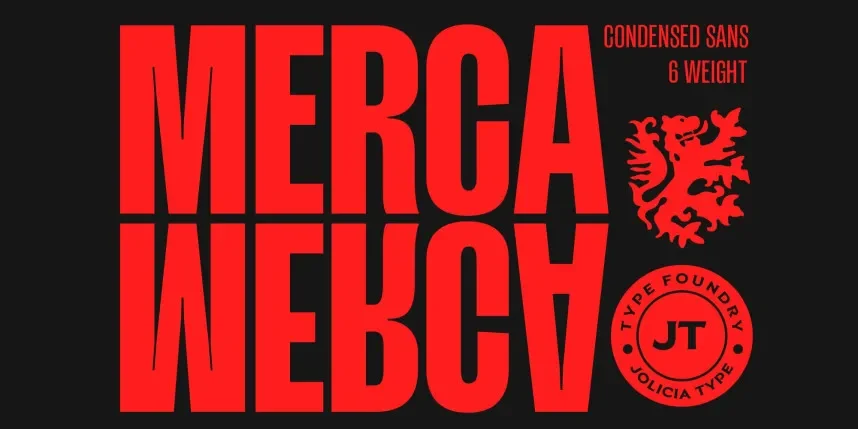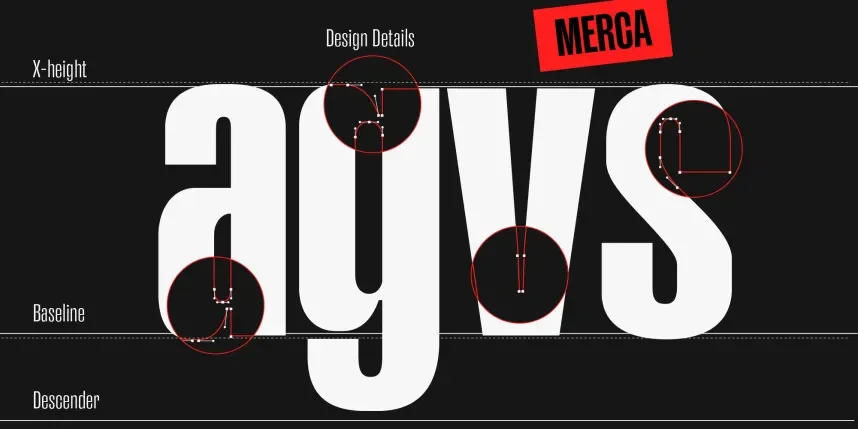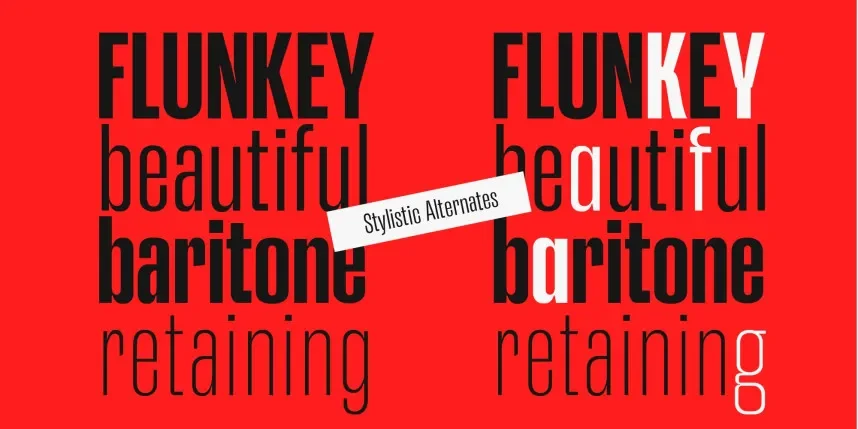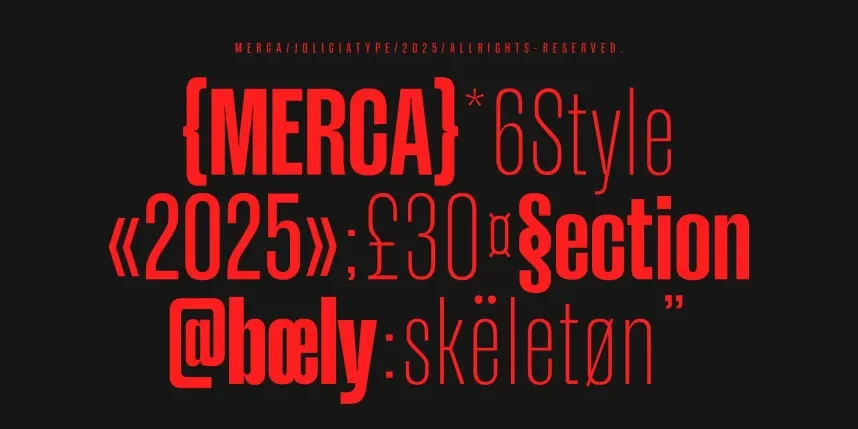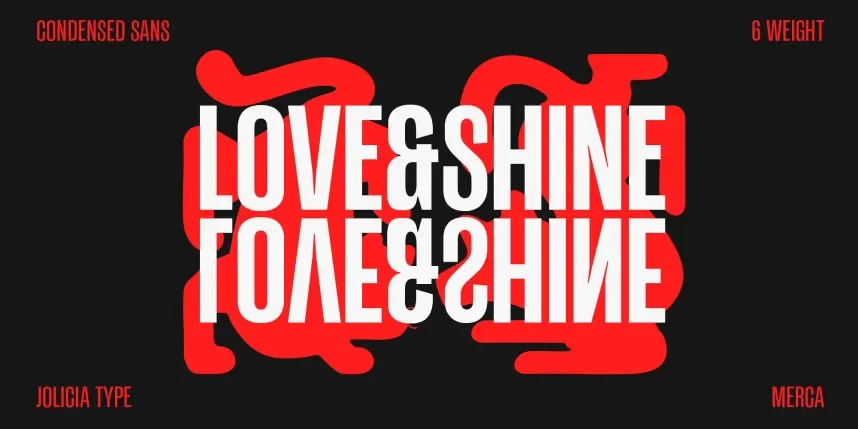
Merca Font is a sans-serif typeface created to improve clarity and consistency in branding, web design, and user interfaces. Designers rely on it when readable text is needed for logos, UI components, and layouts that must stay clear across screen sizes.
Merca Font uses clean letterforms with even stroke widths and open apertures. Its minimal construction reduces visual noise, making it suitable for both headings and short body text. The font includes standard character sets, numerals, and punctuation, supporting practical use in digital and print workflows.